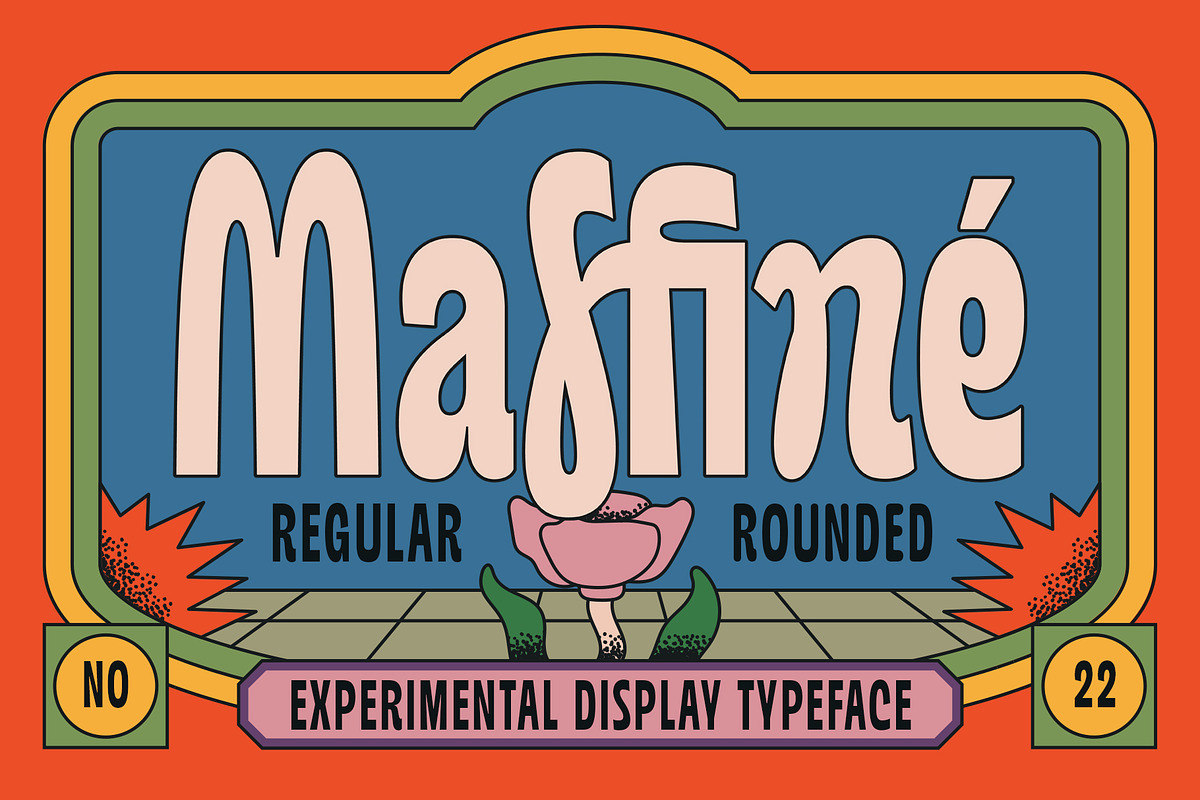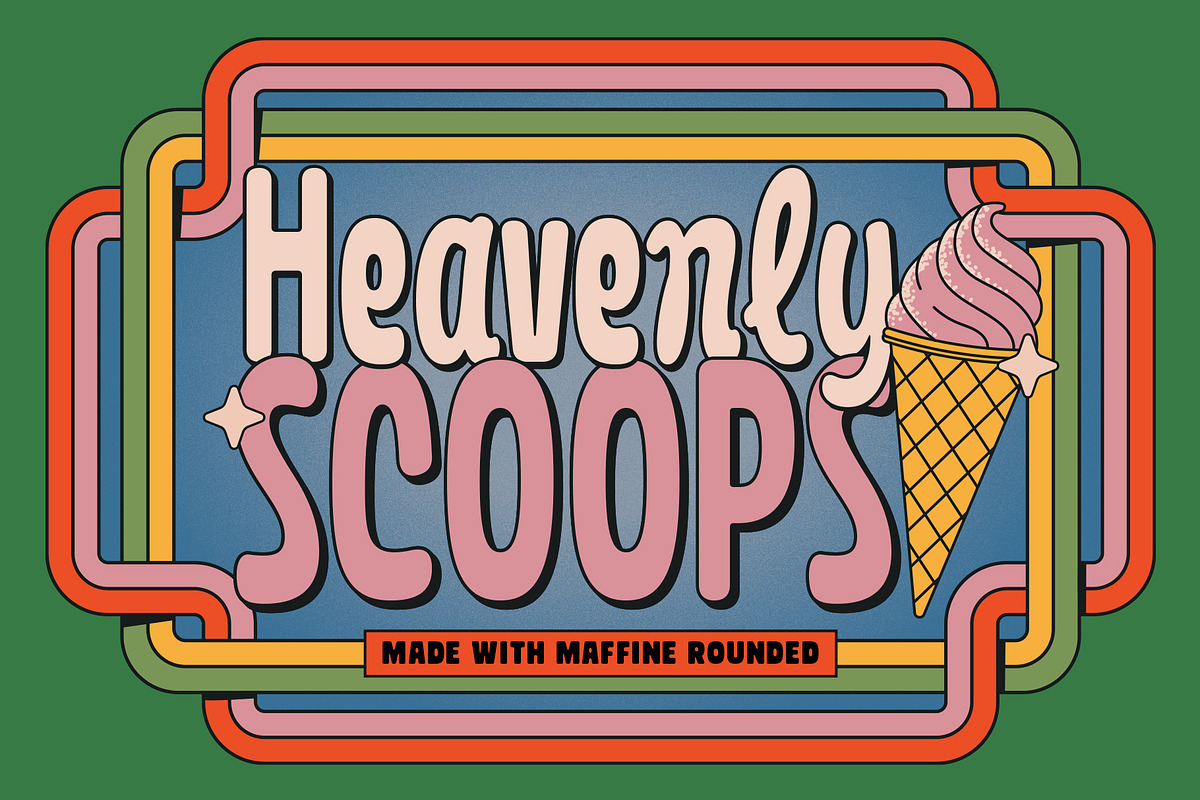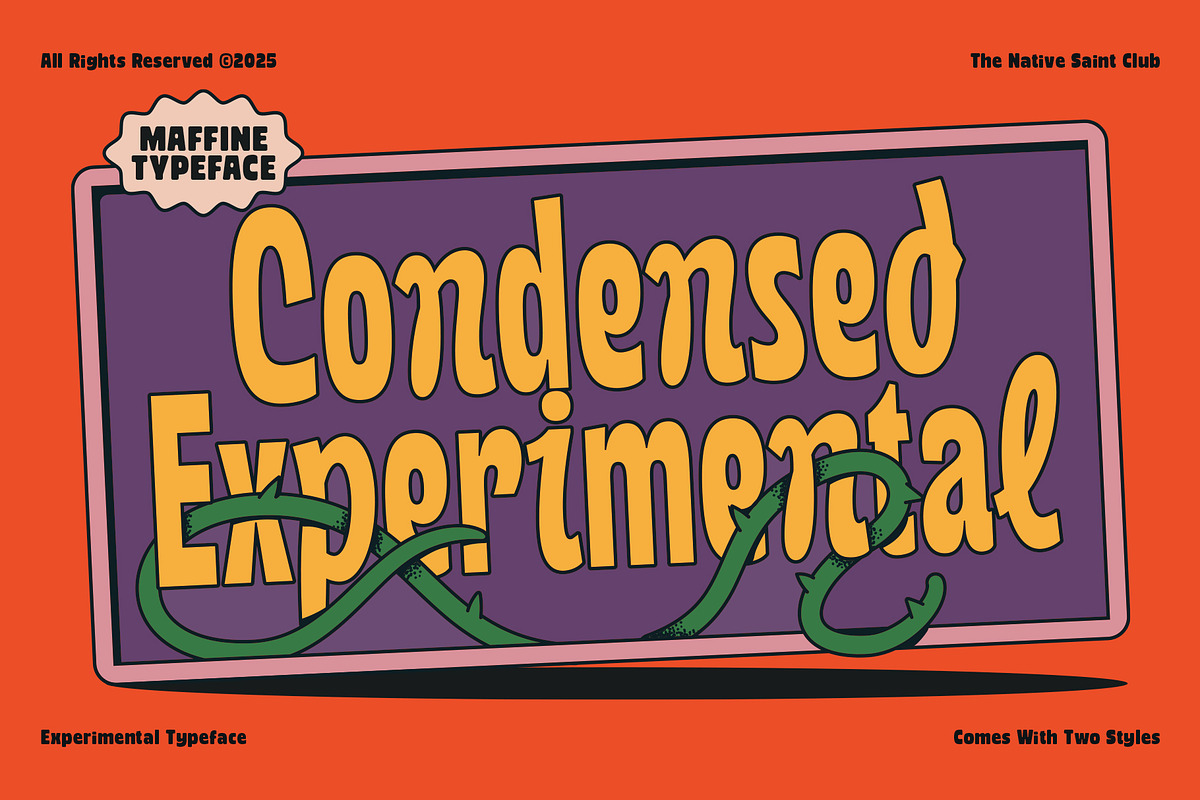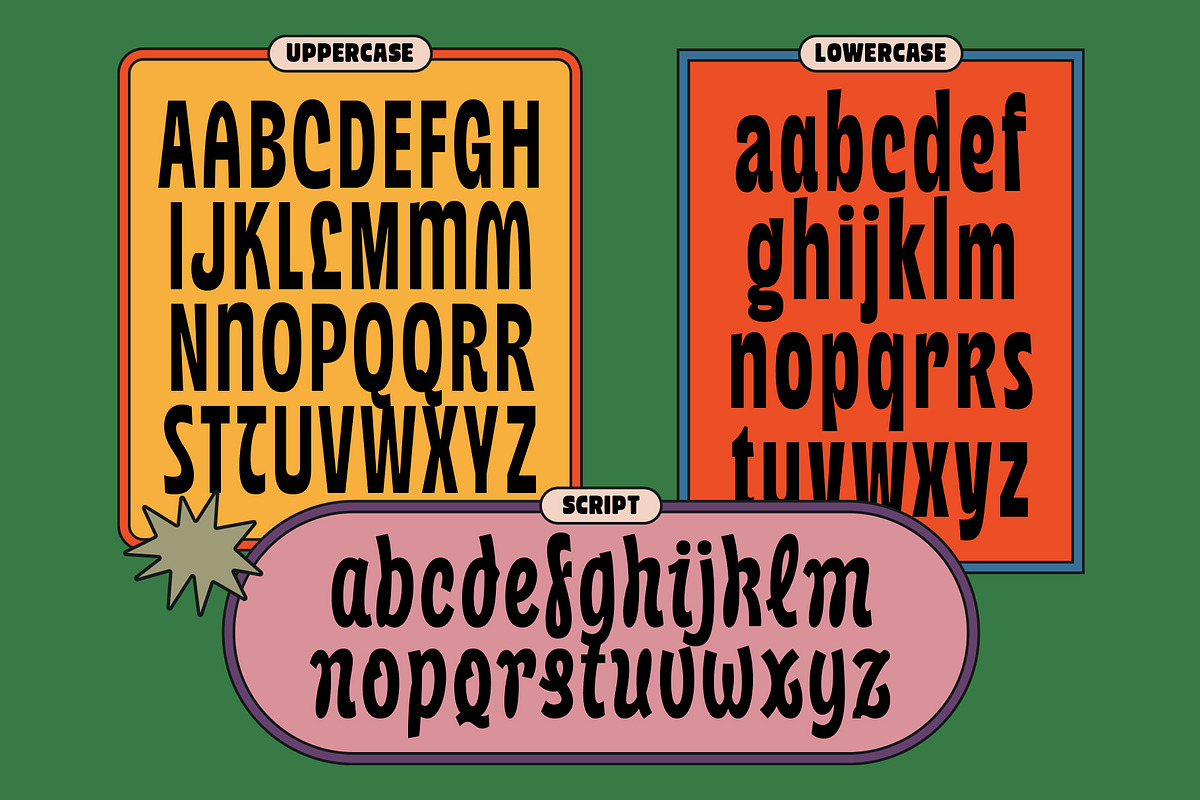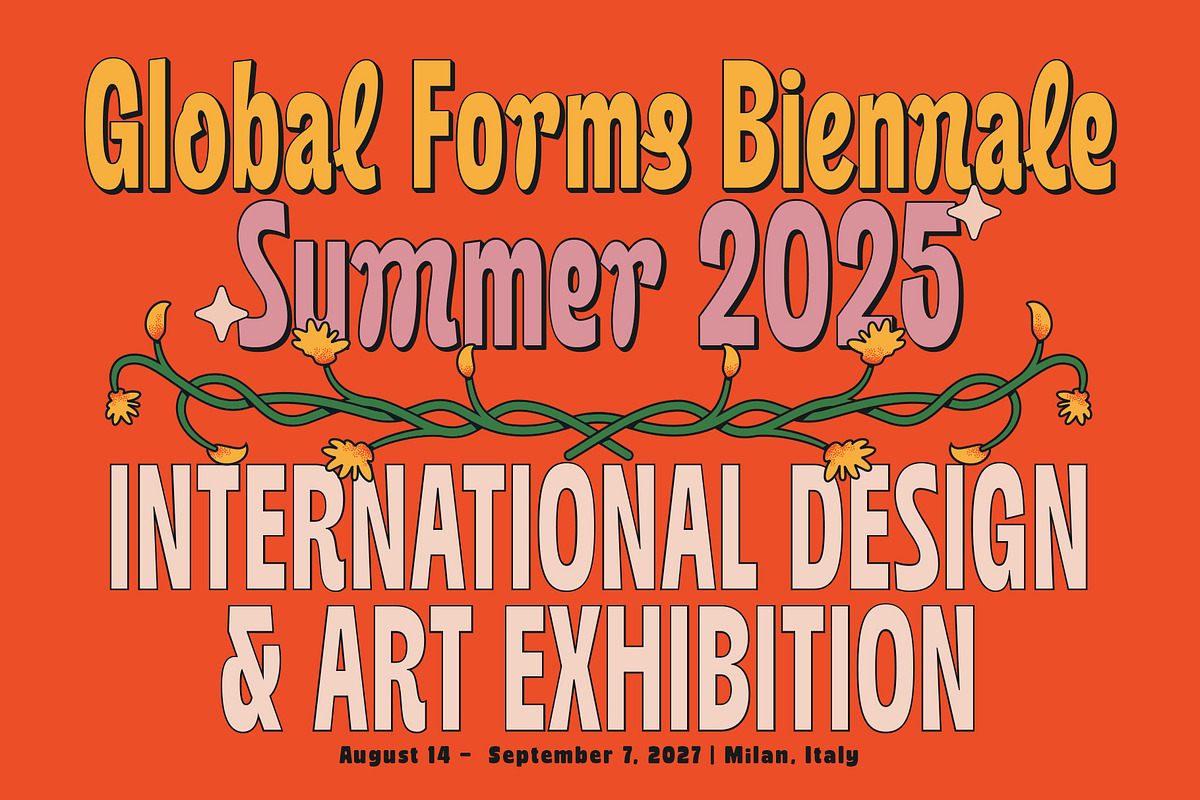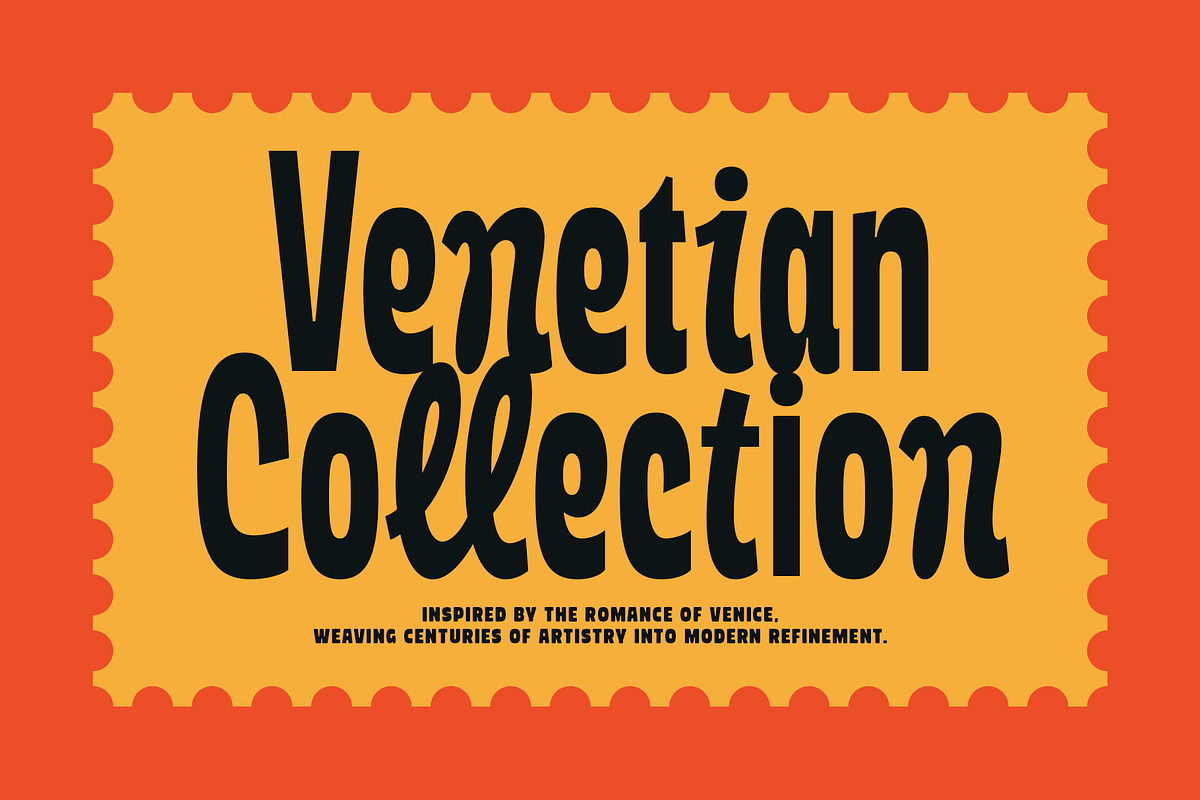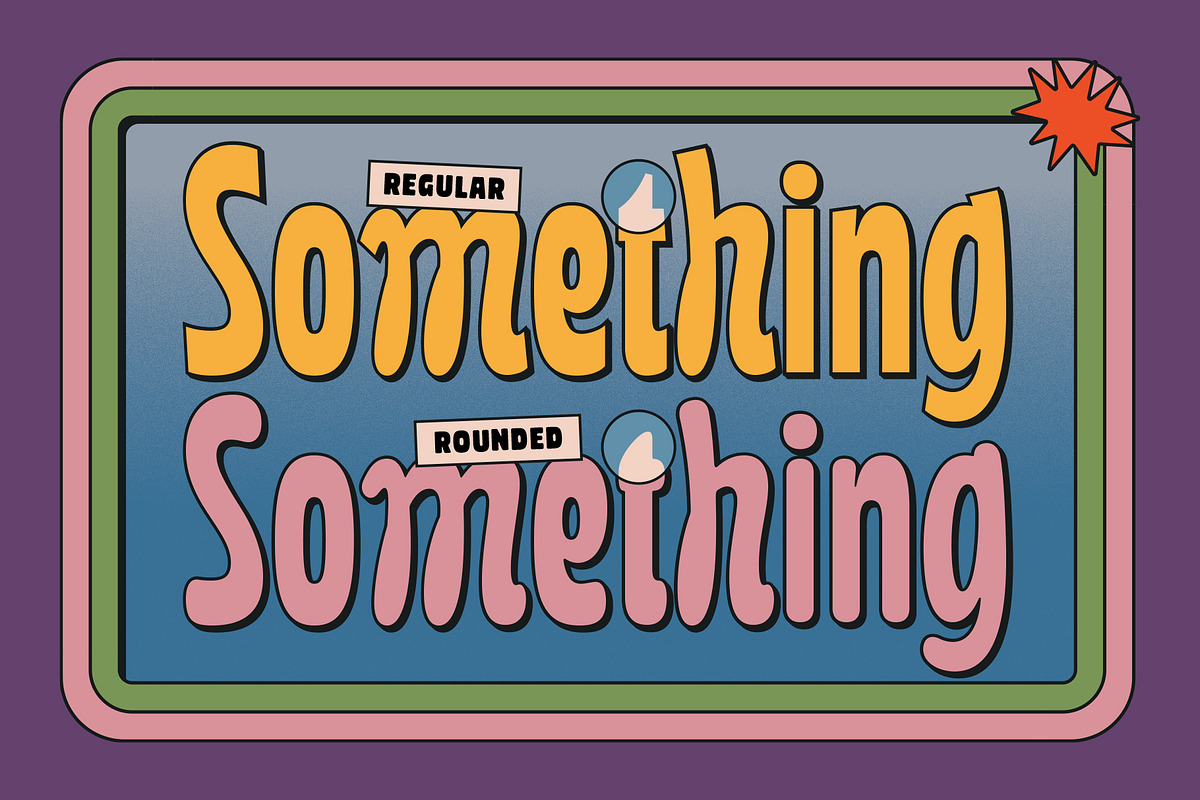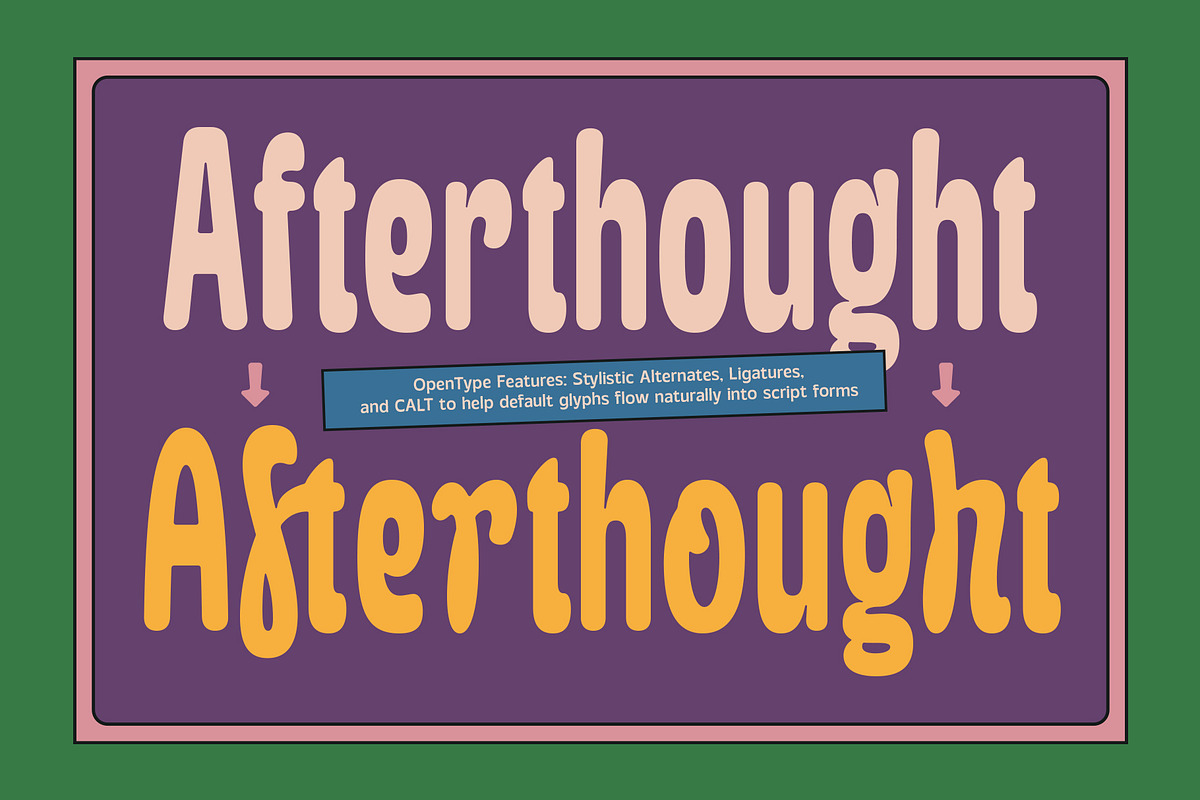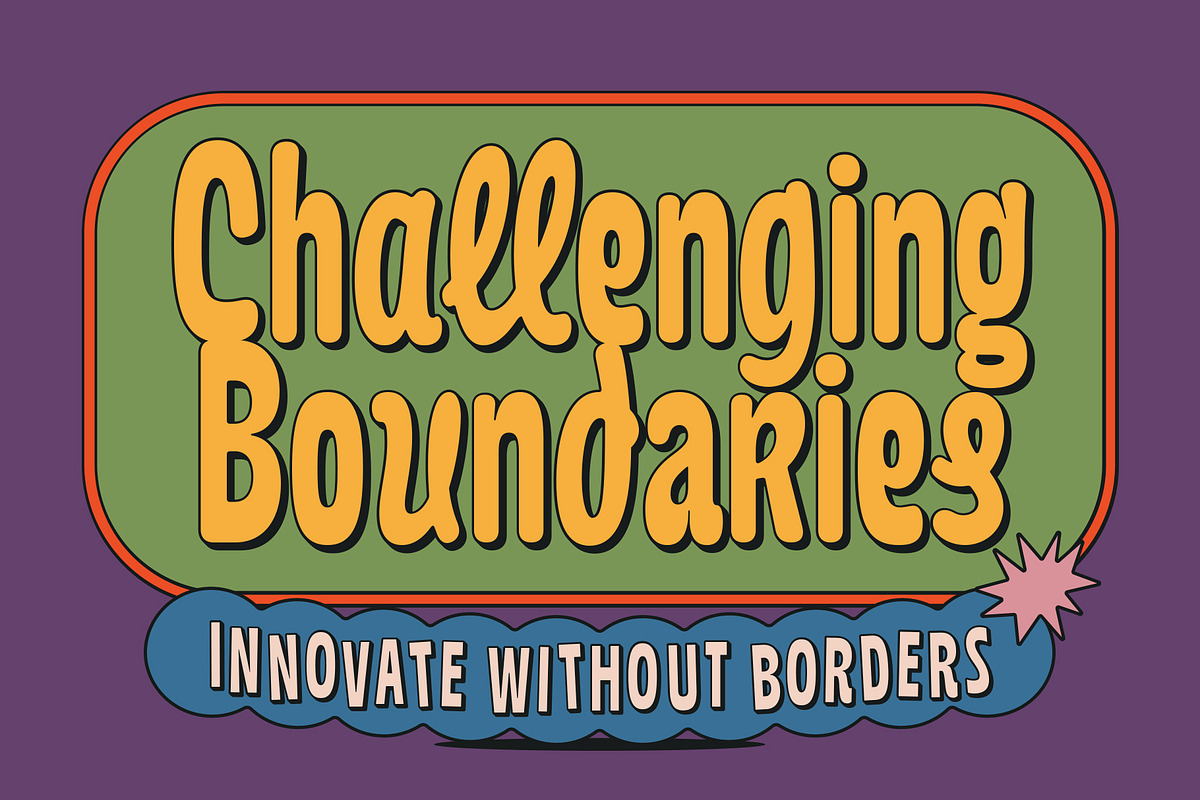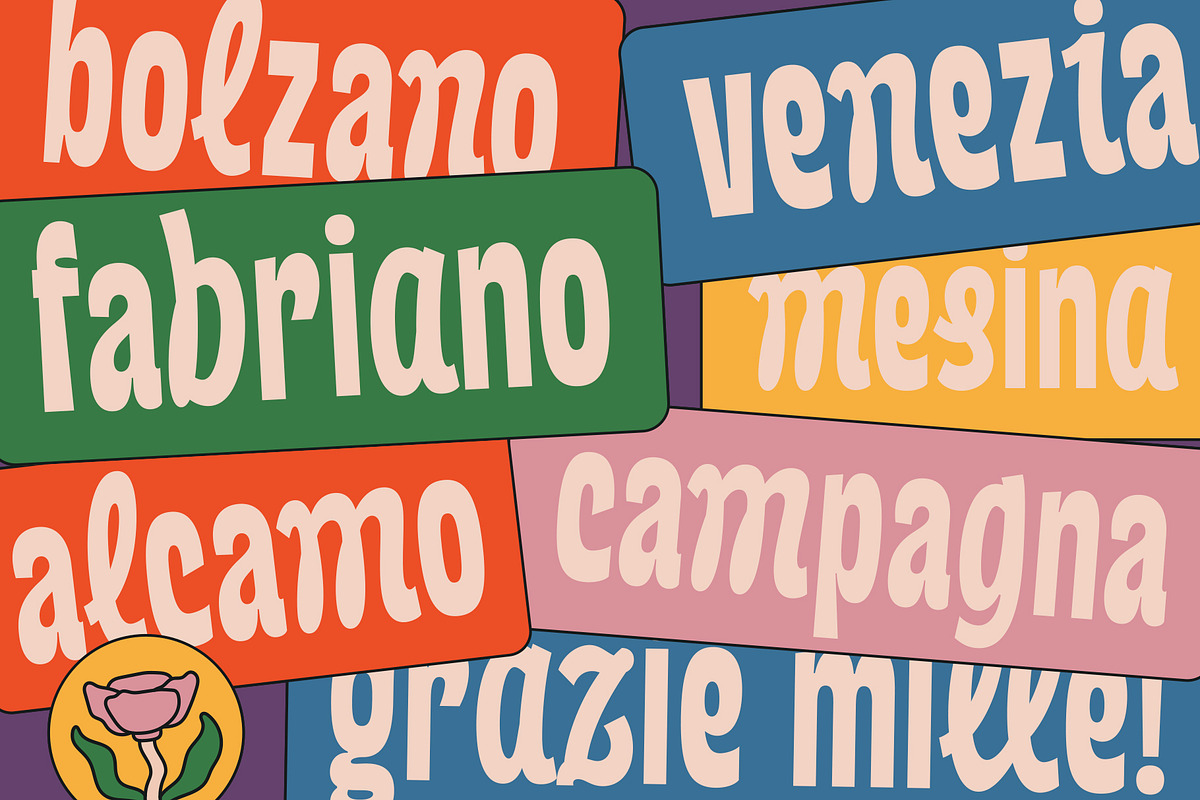
TNSC Maffiné - Experimental Display
TNSC Maffiné is a Experimental and playful display typeface crafted in a Regular & Rounded styles. With its quirky organic curves, it’s perfect for headlines, posters, branding, packaging, quotes and more.